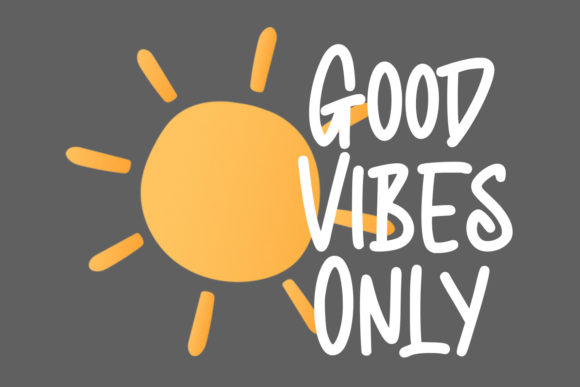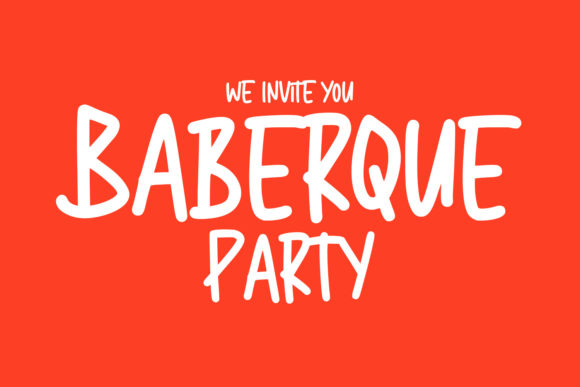
Atheroll Font
db-ku.com - Script & Handwritten -- Atheroll is a fancy, stylish and casual handwritten font. It features bold strokes, fun characters with a bit of ligatures and alternates. It will look extraordinary in a variety of contexts.